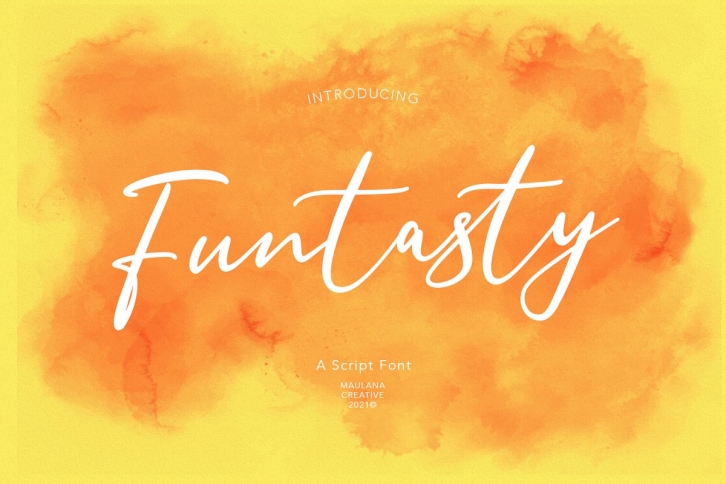
Funtasty is a handwritten script font With clean stroke and fun character. It has Opentype features of ligatures, To give you an extra creative work. Funtasty handwritten script font support multilingual more than 100+ language. This font is good for logo design, Social media, Movie Titles, Books Titles, a short text even a long text letter and good for your secondary text font with sans or serif. Make a stunning work with Funtasty handwritten script font.